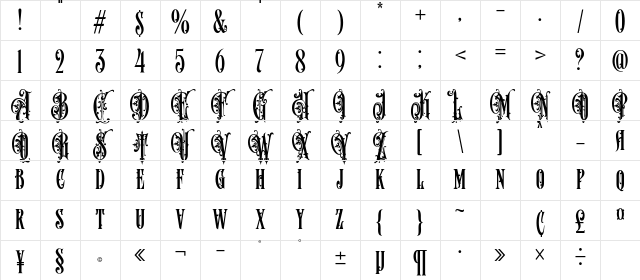
Master Rumble Regular
Foundry: Alit Design
Designer: Kana Widana
Design Context for Master Rumble
Master Rumble is a composed and adaptable typeface that performs quietly and consistently across a wide range of design contexts.